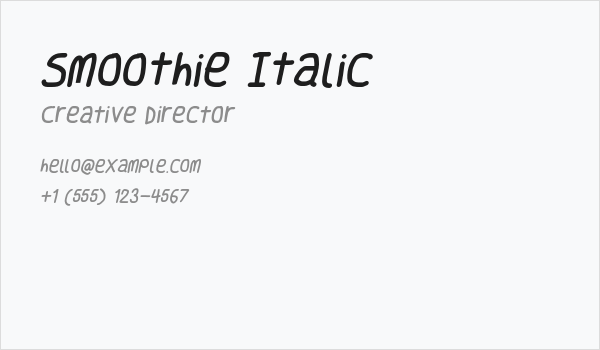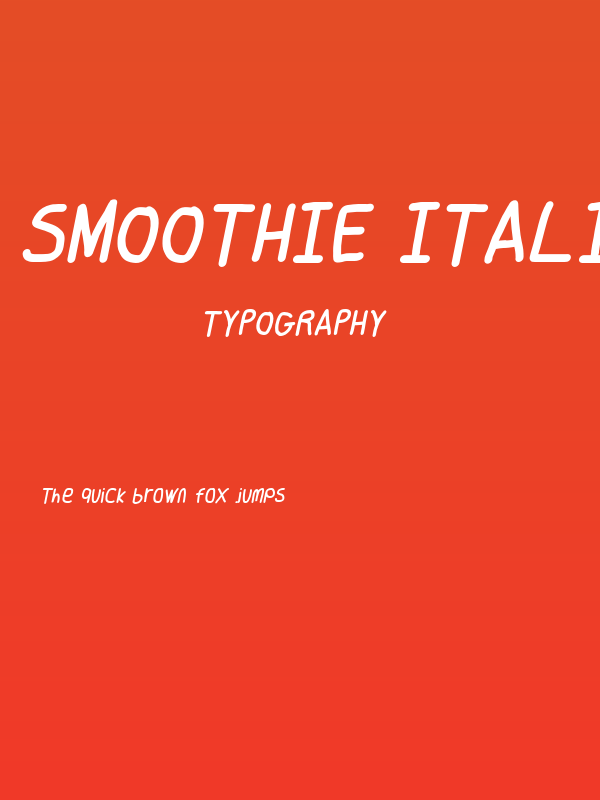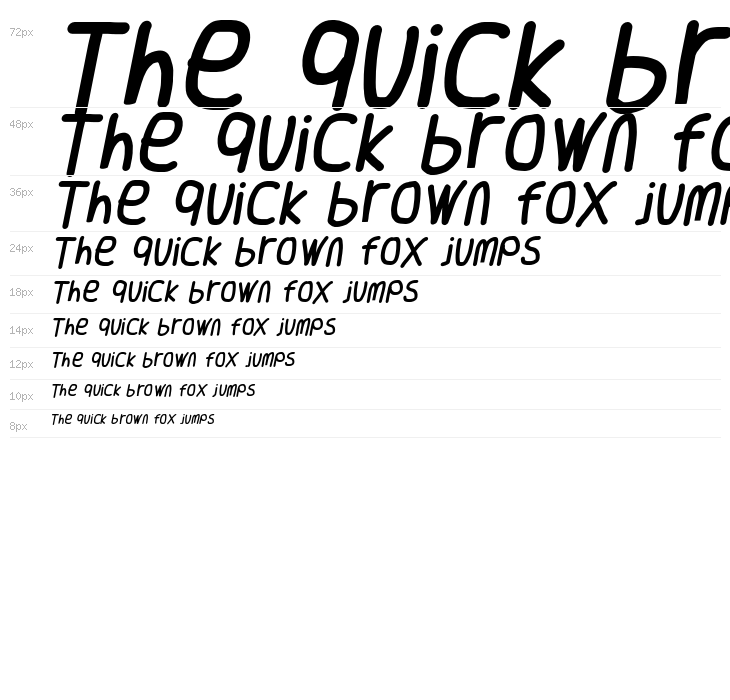
Smoothie Italic Font
Smoothie Italic Description
This font features a playful and casual handwritten style with a smooth, flowing appearance. The characters are slightly slanted, giving it an italic feel, and each letter is crafted with rounded edges that enhance its friendly and approachable look. The strokes are consistent in thickness, providing a uniform appearance across all characters. This font includes a full set of uppercase and lowercase letters, numerals, and a variety of special characters, making it versatile for different design needs. The overall aesthetic is modern yet relaxed, suitable for projects that require a personal touch.
| Use Case | Logos, Headlines, Informal Text |
| Proposed Projects | Ideal for greeting cards, invitations, personal branding, and social media graphics. |